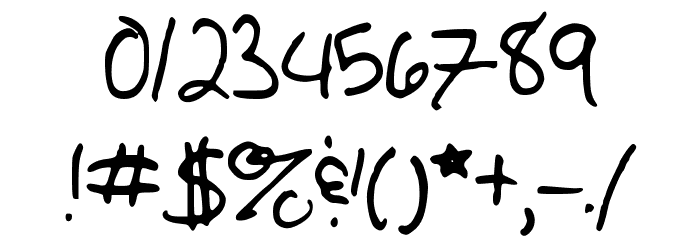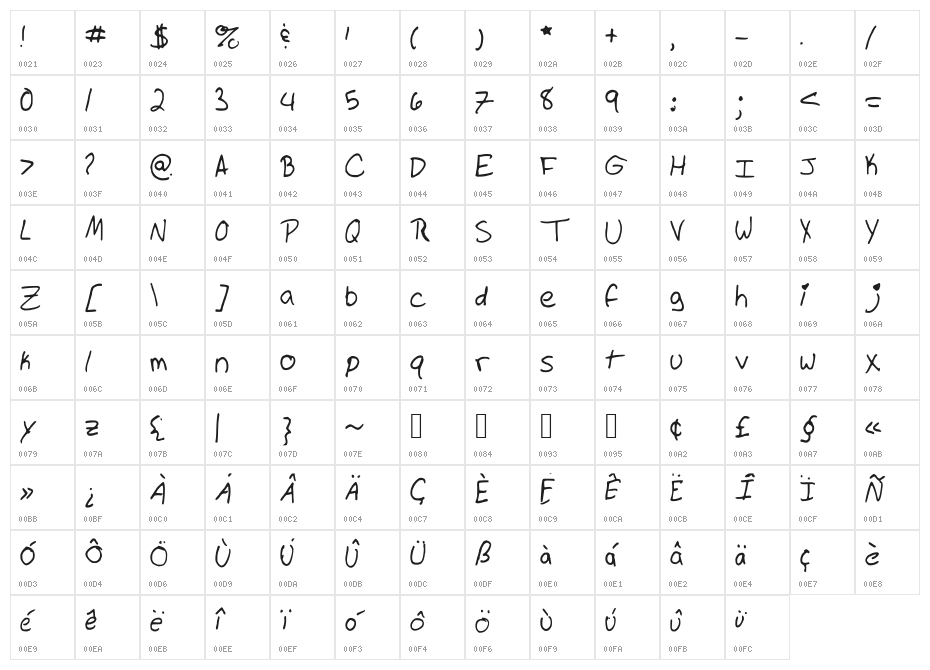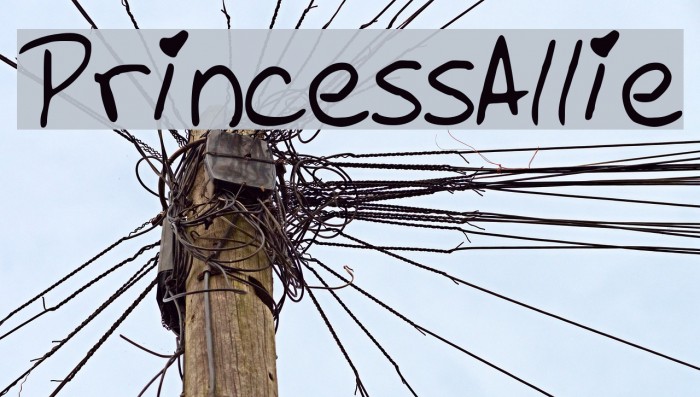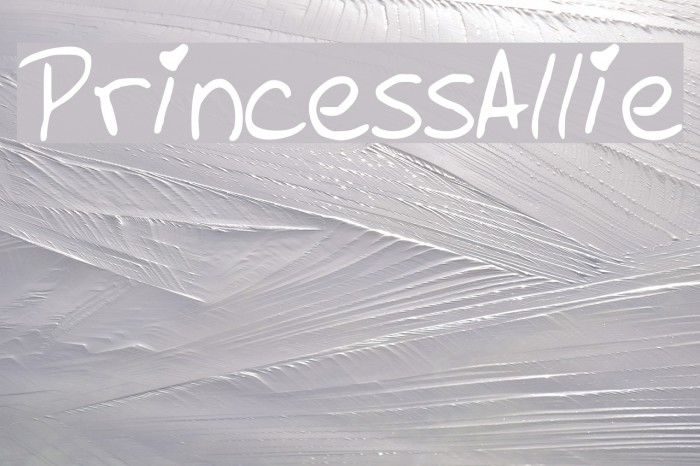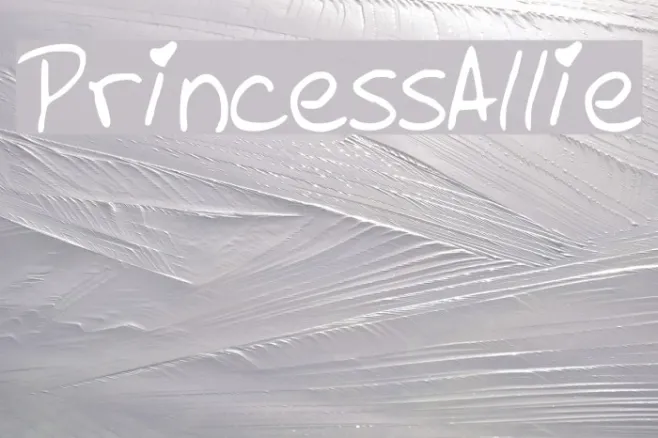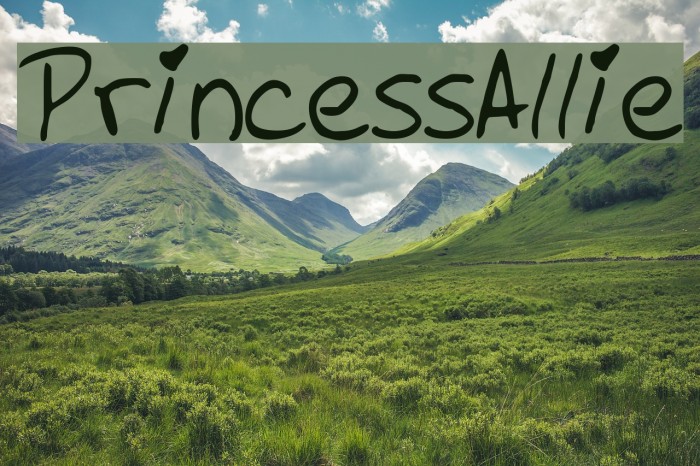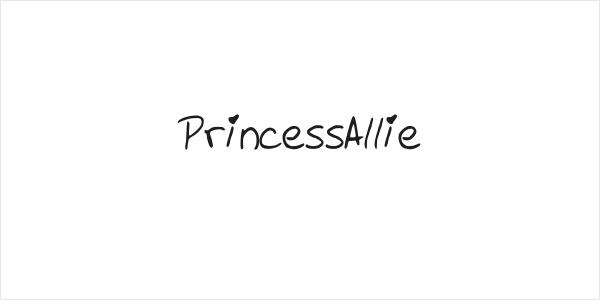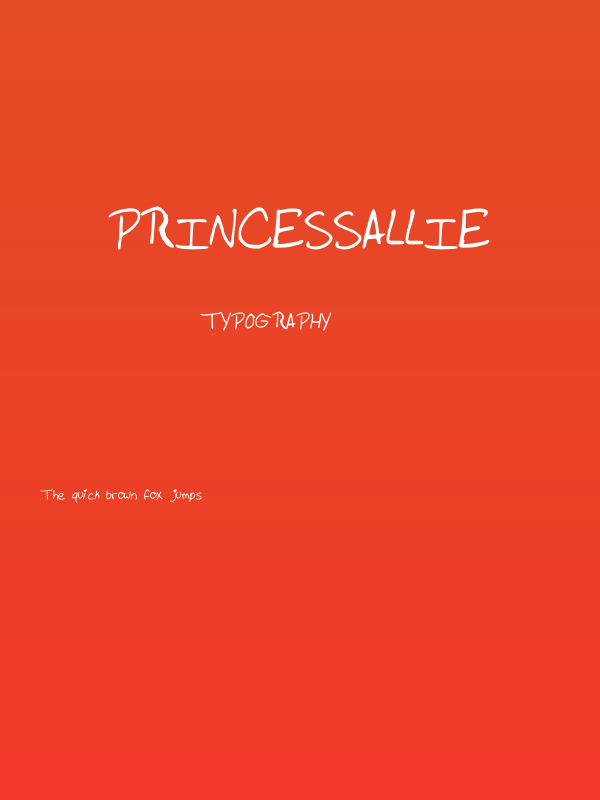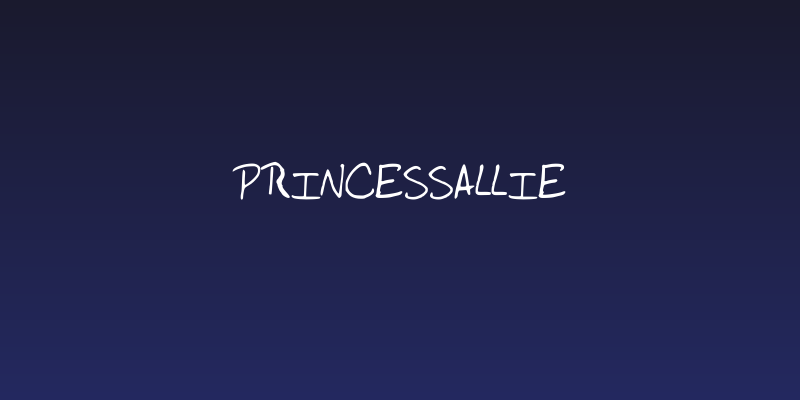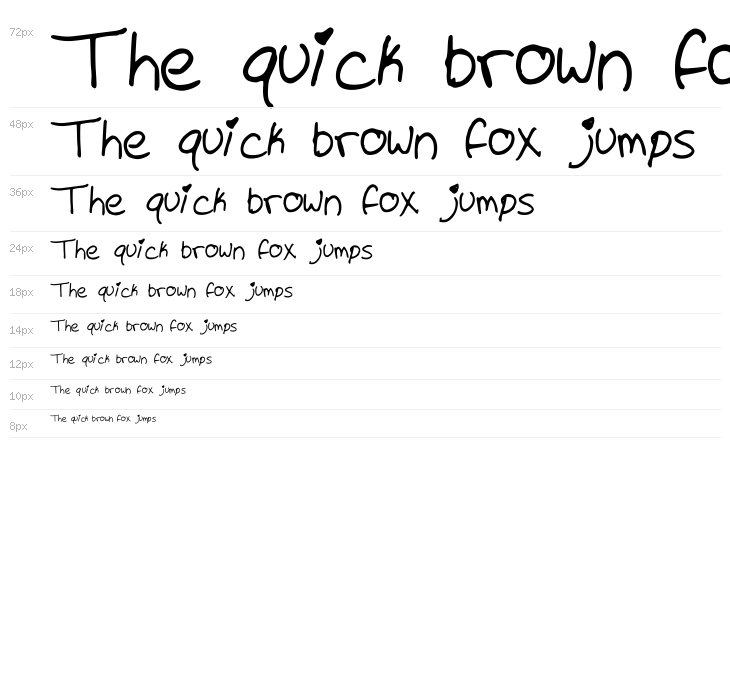
PrincessAllie Font
PrincessAllie Description
This playful and whimsical font features a handwritten style with a casual and friendly appearance. The letters are slightly irregular, giving it a personal and informal touch. The uppercase characters are bold and prominent, while the lowercase letters maintain a consistent flow with charming embellishments, such as small hearts on the 'i' and 'j'. The numerals are clear and easy to read, matching the overall playful aesthetic. Special characters are creatively designed, adding to the font's unique personality. This font is perfect for projects that require a fun and approachable look.
| Use Case | Headlines, Logos, Social media graphics |
| Proposed Projects | Ideal for children's books, greeting cards, playful branding, and social media graphics. |